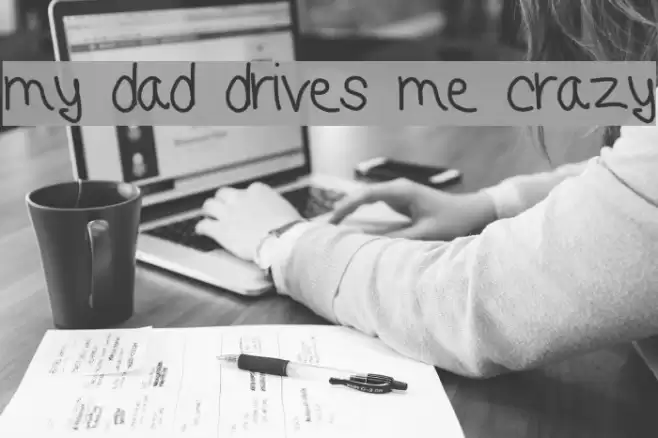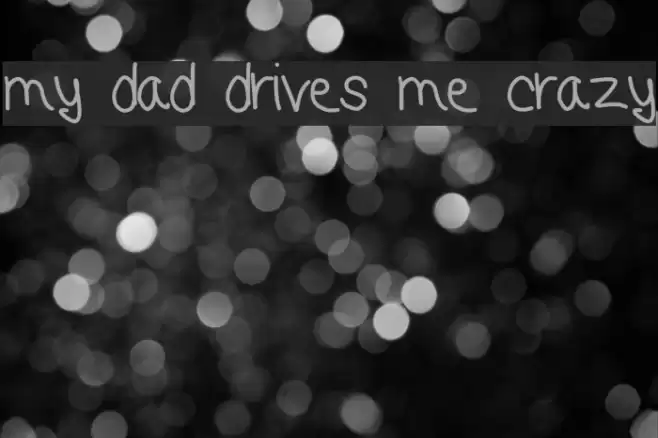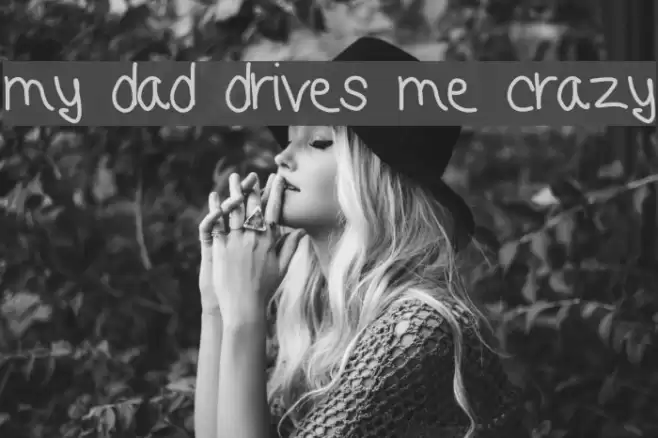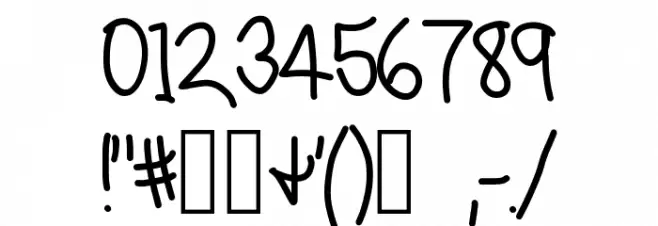
my dad drives me crazy Font
my dad drives me crazy Description
This playful and casual handwritten font features a whimsical style with irregular strokes and a friendly appearance. The letters are slightly slanted, giving a dynamic and lively feel. The uppercase and lowercase characters maintain a consistent flow, while the numbers and special characters blend seamlessly with the overall design. The strokes vary in thickness, adding a touch of personality and charm. This font is perfect for projects that require a personal and informal touch, such as greeting cards, invitations, or children's book illustrations.
A playful and casual handwritten font with a whimsical style from Handwritten fonts.
- Overall Style: Casual, Playful